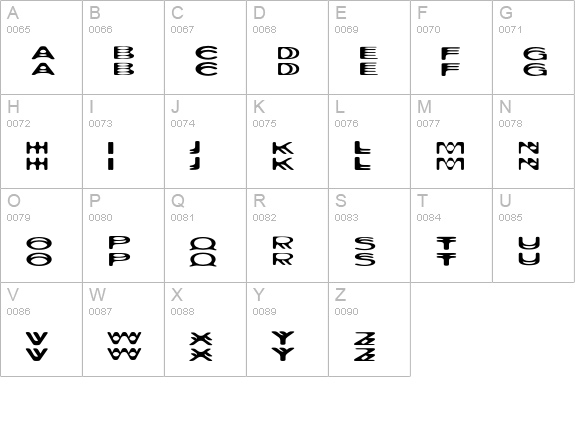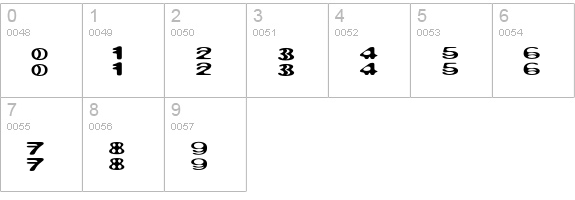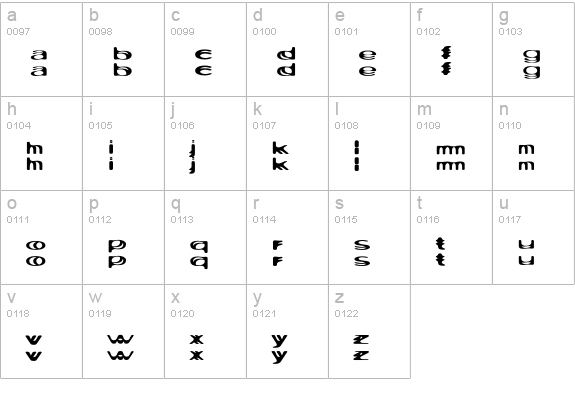
Ritual-Three Font Details
Ritual-Three font is a captivating typeface that exudes a sense of mystique and elegance. Its intricate design and unique flourishes make it a perfect choice for projects that require a touch of sophistication. The carefully crafted letterforms of Ritual-Three font demand attention and create a memorable visual impact. What sets Ritual-Three font apart is not just its design, but also its versatility. Whether you're working on a branding project, invitation, or editorial layout, this font will elevate your work and give it a refined, polished look. And the best part? Ritual-Three font is completely free for personal and commercial use. You can easily download it at FontsMarket.com and start using it in your projects right away. Don't miss out on this opportunity to add a touch of glamour to your designs with Ritual-Three font.